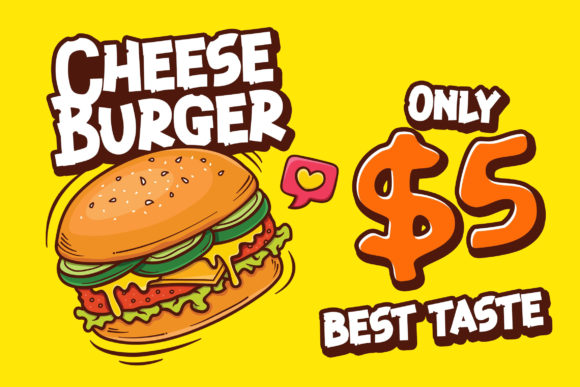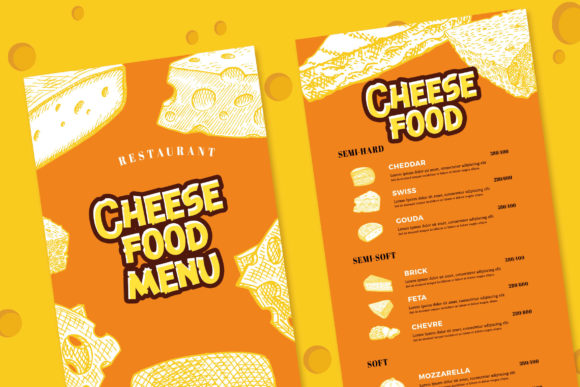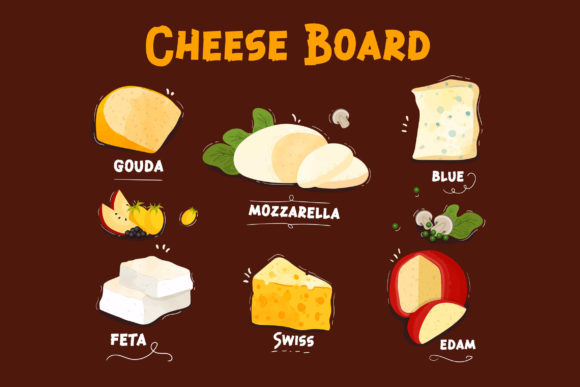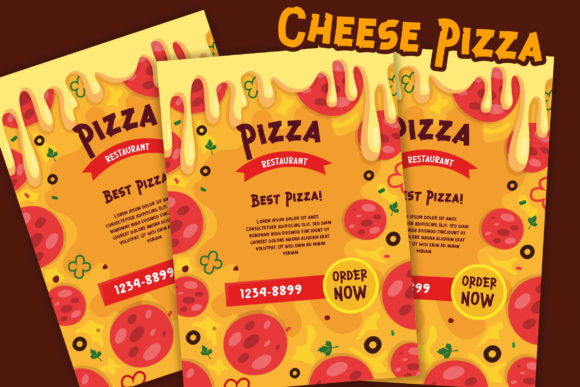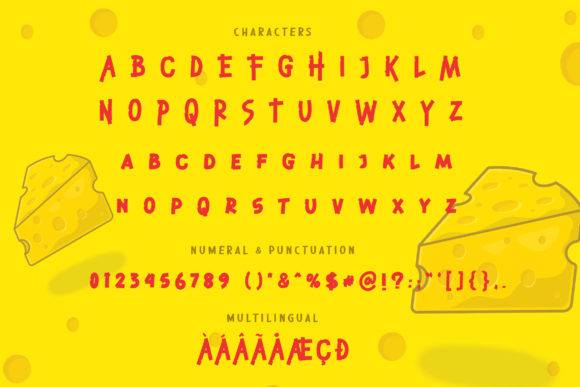
Introducing Bitten Cheese Font: The Cute and Friendly Display Font You Need
Are you a designer or crafter looking for a unique and playful font to add to your creations? Look no further than Bitten Cheese Font! This adorable display font is sure to bring a smile to your face and a touch of whimsy to your designs. In this article, we’ll dive into the world of Bitten Cheese Font and explore its features, benefits, and uses.
What is Bitten Cheese Font?
Bitten Cheese Font is a cute, friendly, and cartoon-like display font that is perfect for adding a playful touch to your designs. Its unique and quirky style is sure to make your creations stand out from the crowd. Whether you’re working on a logo, poster, or social media graphic, Bitten Cheese Font is the perfect choice.
Features of Bitten Cheese Font
- Cute and Friendly Design: Bitten Cheese Font has a charming and approachable design that is sure to appeal to a wide range of audiences.
- Cartoon-Like Style: The font’s playful and cartoon-like style makes it perfect for designs that require a touch of whimsy and fun.
- Display Font: Bitten Cheese Font is a display font, making it perfect for headlines, titles, and other prominent text elements.
- Easy to Read: Despite its playful style, Bitten Cheese Font is easy to read and understand, making it perfect for use in a variety of designs.
Benefits of Using Bitten Cheese Font
So why should you choose Bitten Cheese Font for your designs? Here are just a few benefits of using this adorable font:
- Adds a Touch of Whimsy: Bitten Cheese Font adds a playful and whimsical touch to your designs, making them more engaging and fun.
- Perfect for Kids and Adults Alike: The font’s cute and friendly design makes it perfect for designs aimed at both kids and adults.
- Versatile: Bitten Cheese Font can be used in a wide range of designs, from logos and posters to social media graphics and more.
- Easy to Pair with Other Fonts: The font’s unique style makes it easy to pair with other fonts, allowing you to create visually appealing and harmonious designs.
Uses of Bitten Cheese Font
So what can you use Bitten Cheese Font for? The possibilities are endless! Here are a few ideas to get you started:
- Logos and Branding: Use Bitten Cheese Font to create a playful and memorable logo for your business or brand.
- Posters and Flyers: Add a touch of whimsy to your posters and flyers with Bitten Cheese Font.
- Social Media Graphics: Use the font to create eye-catching social media graphics that are sure to grab attention.
- Crafting and DIY Projects: Bitten Cheese Font is perfect for crafting and DIY projects, such as making signs, banners, and other decorative items.